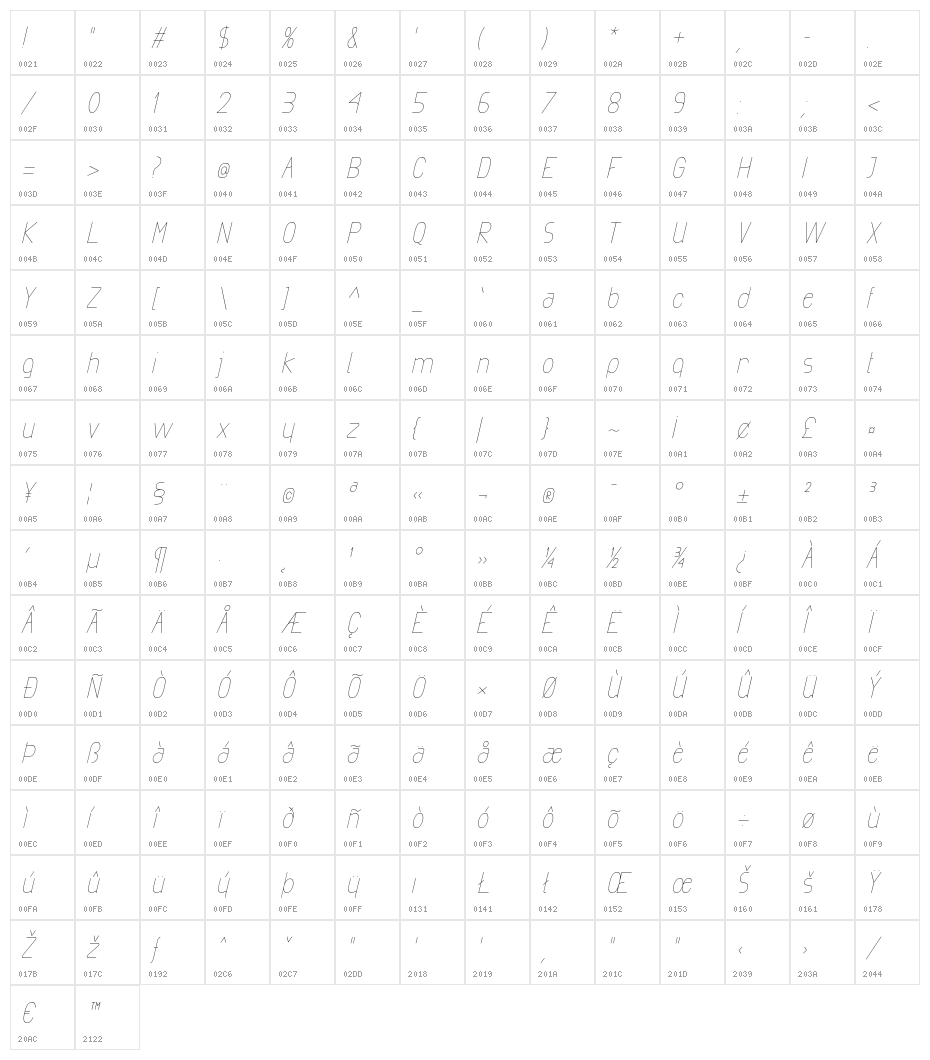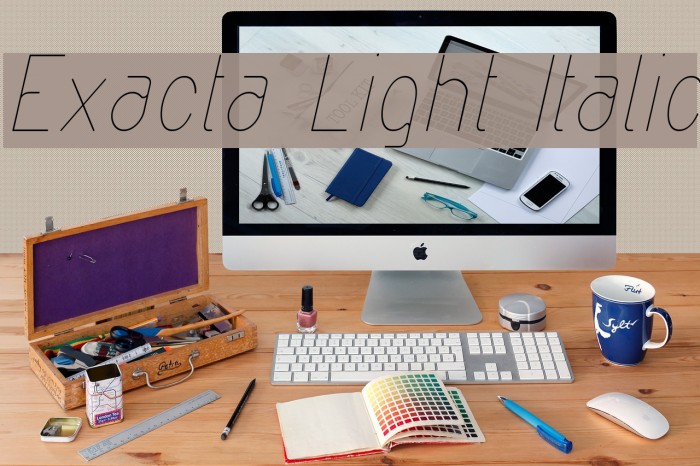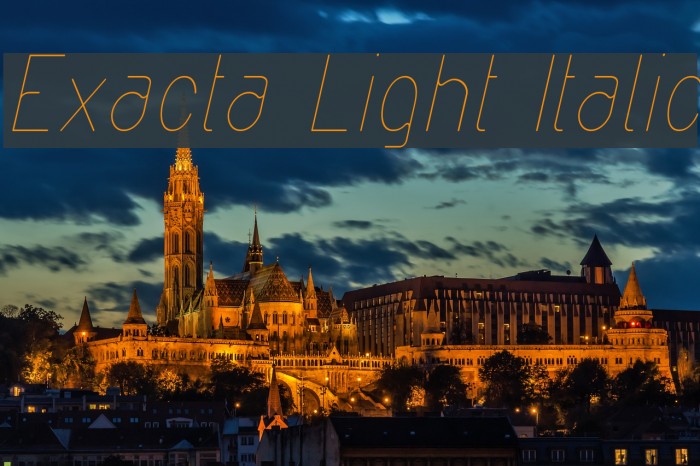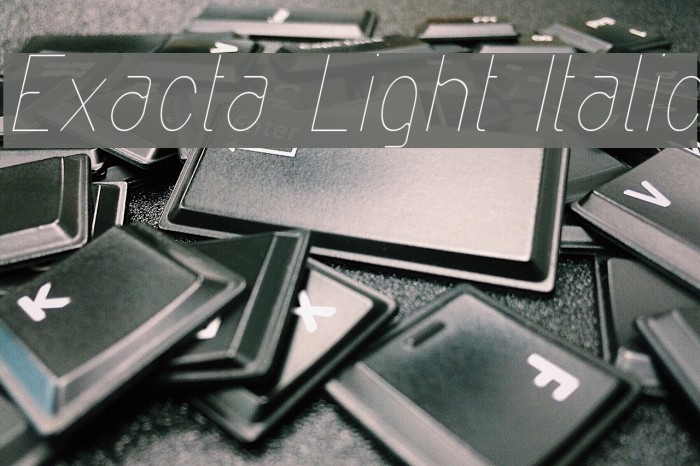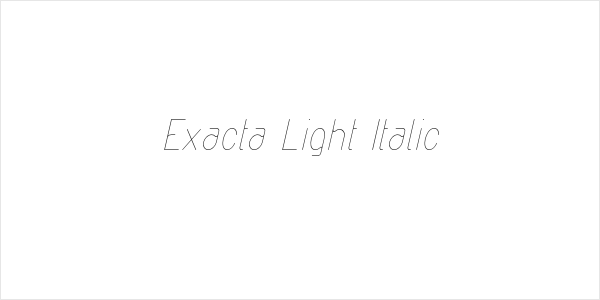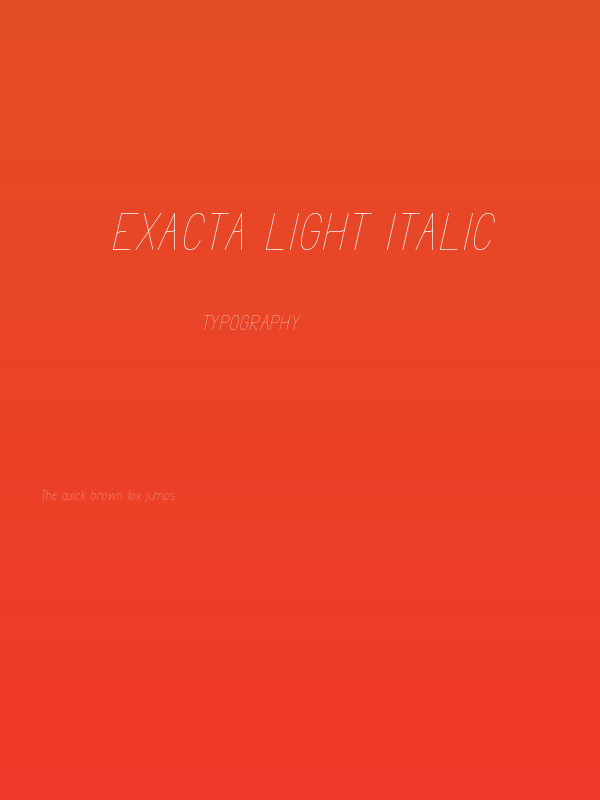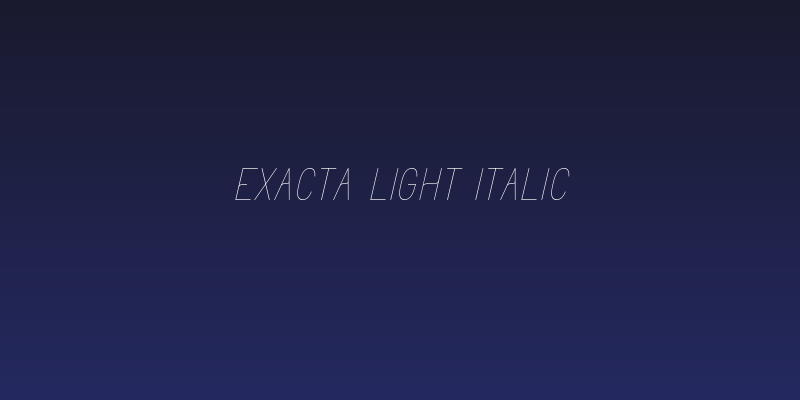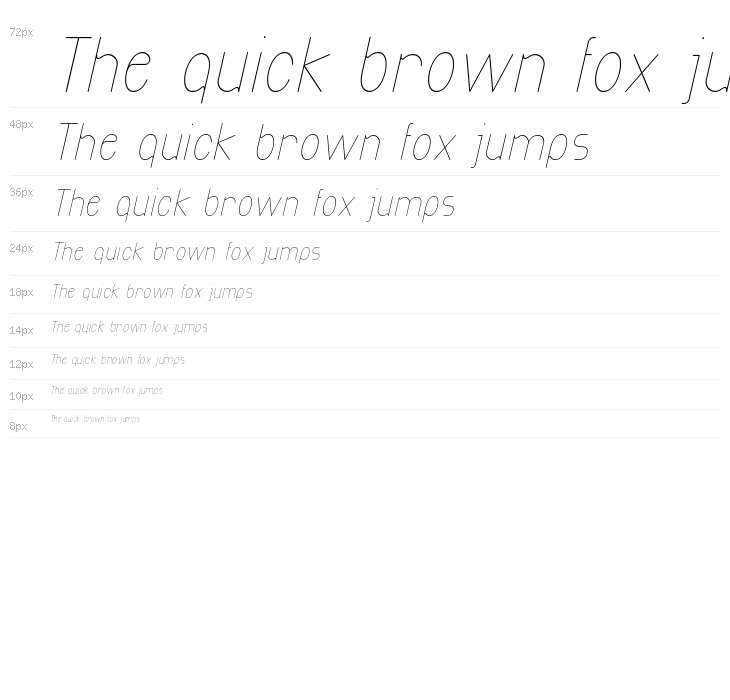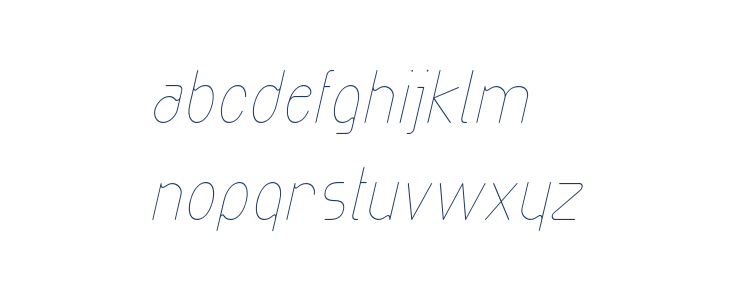
Exacta Light Italic Font
Exacta Light Italic Description
This font features a sleek, modern design with a light and airy feel. The characters are italicized, giving a sense of motion and elegance. The strokes are thin, contributing to a minimalist aesthetic that is both sophisticated and contemporary. The uppercase and lowercase letters maintain a consistent style, with smooth curves and sharp angles. Numbers and special characters are designed to match the overall style, ensuring uniformity across all text. This font is ideal for projects that require a clean and refined look.